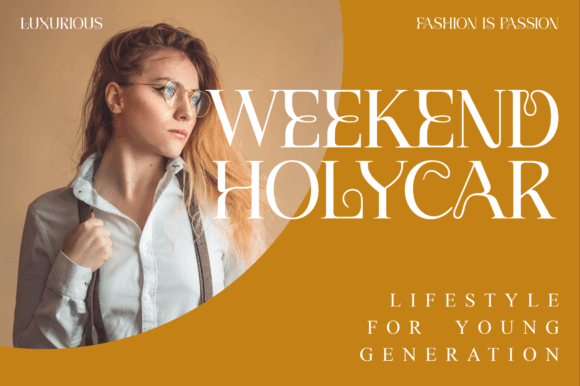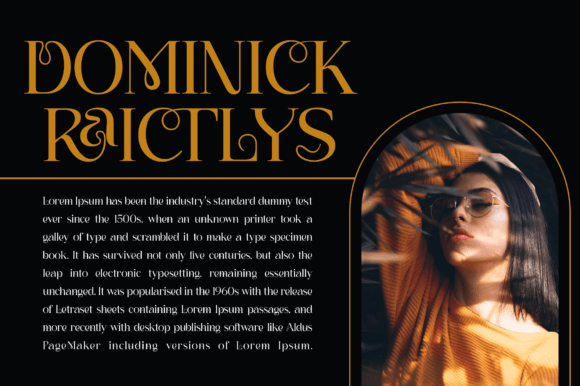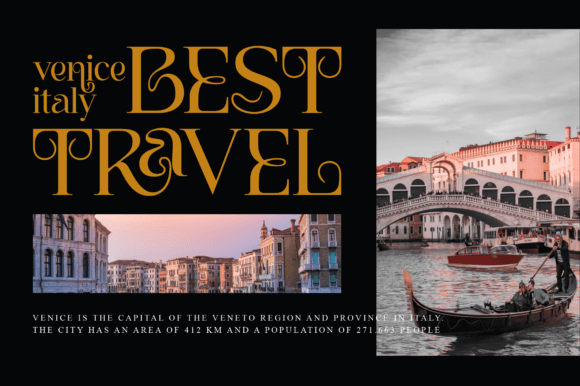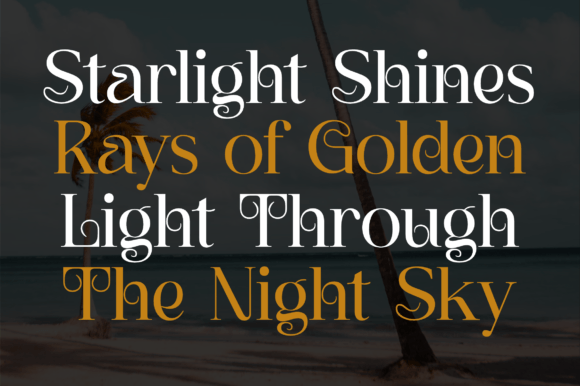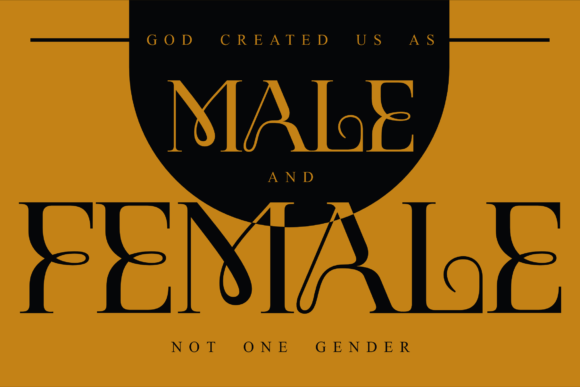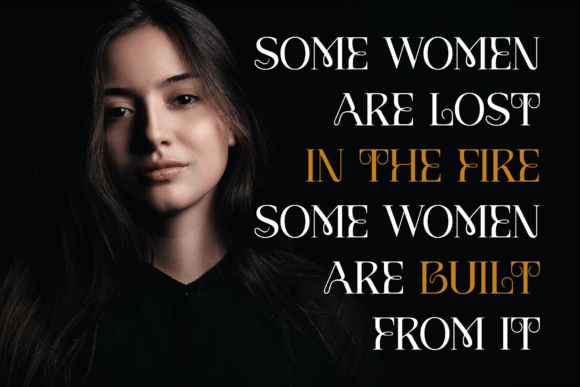
The Designer’s Delight: Uncovering the Elegance of Anchora Font
I’ll never forget the time I was working on a project for a client who wanted a sophisticated, elegant look. I had spent hours browsing through font libraries, but nothing seemed quite right. That was until I stumbled upon Anchora Font. It was love at first sight! The natural, elegant style of this gorgeous serif font instantly elevated my design, and I knew I had found the perfect fit. In this article, I’ll share my experience with Anchora Font, its features, and how to make the most of it in your designs.
• ✅ Elegant and sophisticated design that’s perfect for high-end projects
• ✅ Wide range of OpenType features, glyphs, and stylistic alternates to enhance your typography
• ✅ Works beautifully for both digital and print projects
• ⚠️ Limited availability of certain OpenType features in some software applications
• ⚠️ May not be the best fit for very casual or playful designs
The Story Behind Anchora Font
Anchora Font was designed by a team of typographers who wanted to create a font that embodied the elegance and sophistication of traditional serif fonts, while still feeling modern and fresh. Inspired by classic typography and calligraphy, Anchora Font is the result of meticulous craftsmanship and attention to detail.
Q: Is Anchora Font suitable for body text?
A: Yes, Anchora Font is highly legible and suitable for body text, even at small font sizes.
Q: Does Anchora Font support OpenType features?
A: Yes, Anchora Font includes a wide range of OpenType features, glyphs, and stylistic alternates to enhance your typography.